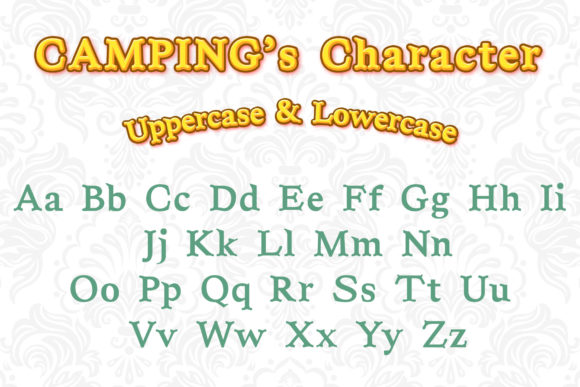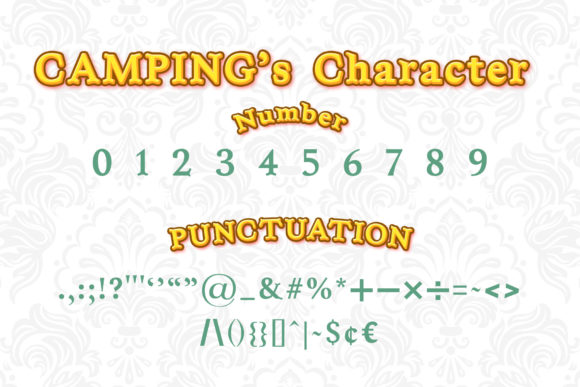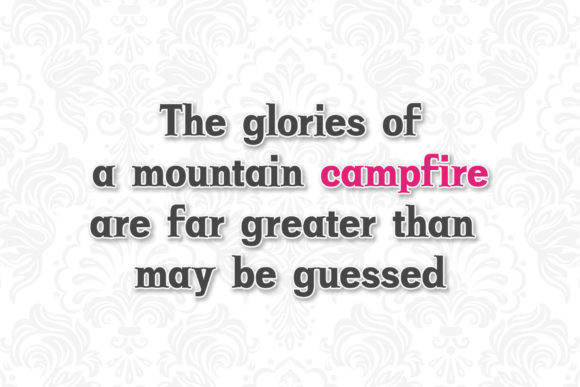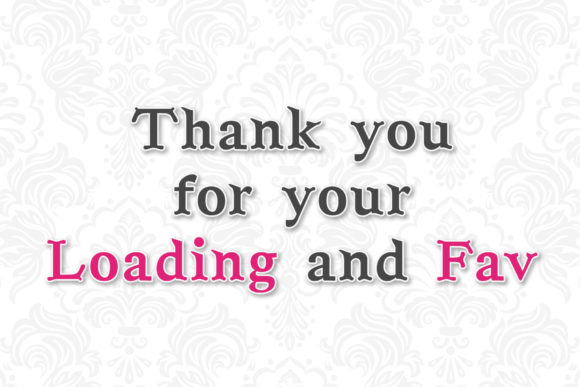
The Great Outdoors, in Type: A Deep Dive into Camping Serif Font
I’ll never forget the design project that led me to discover the Camping Serif Font. I was working on a branding campaign for an outdoor gear company, and I was struggling to find the perfect font that captured the essence of adventure and ruggedness. That’s when I stumbled upon Camping Serif Font, and it was love at first sight! 💡
The bold and authentic look of Camping Serif Font immediately resonated with me. I knew I had to learn more about this font and share it with fellow designers and creative hobbyists. In this article, we’ll explore what makes Camping Serif Font special, its features, and how to use it on various platforms.
- ✅ Bold and Authentic Look: Camping Serif Font has a unique, rugged feel that adds a touch of adventure to any design project.
- ✅ High Versatility: This font can be paired with a wide range of projects, from outdoor branding to crafty DIY designs.
- ✅ Ease of Use: Camping Serif Font is easy to read and works well in both digital and print formats.
- ⚠️ Limited Online Use: While Camping Serif Font works well in digital formats, it may not be the best choice for body text due to its bold nature.
- ⚠️ Glyph Limitations: Some users have reported limited glyph options, which may restrict creative freedom.
Exploring Alternatives: Similar Fonts to Camping Serif Font
If you like Camping Serif Font, you might also enjoy these similar fonts:
- Rockwell: A classic serif font with a similar bold and rugged feel.
- Lora: A elegant serif font with a slightly more refined look.
- Playfair Display: A luxurious serif font with a vintage feel.
- Merriweather: A classic serif font with a strong, adventurous personality.
The Story Behind Camping Serif Font: Designer Inspiration
Camping Serif Font was designed with the great outdoors in mind. The font’s creator wanted to capture the essence of adventure and ruggedness in a typeface that would inspire designers to create bold and authentic designs. The font’s design is inspired by the natural world, with a focus on bold lines and rustic charm.
Q: What is Camping Serif Font best used for?
A: Camping Serif Font is best used for designs that require a bold and authentic look, such as outdoor branding, crafty DIY designs, and adventure-themed projects.
Q: Is Camping Serif Font suitable for body text?
A: While Camping Serif Font can be used for body text, it may not be the best choice due to its bold nature. It’s better suited for headings and titles.